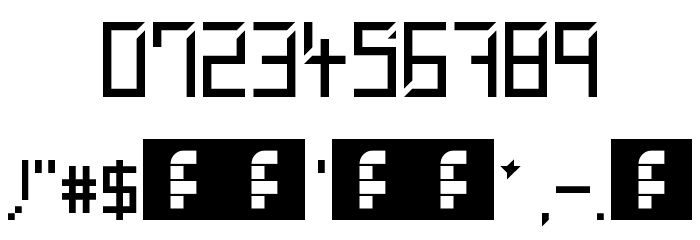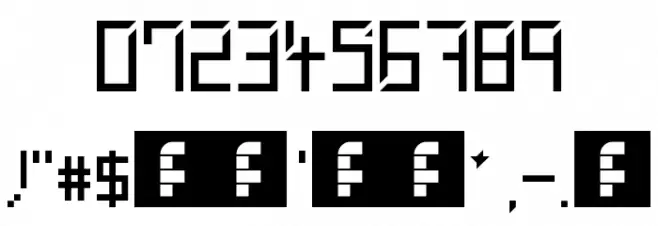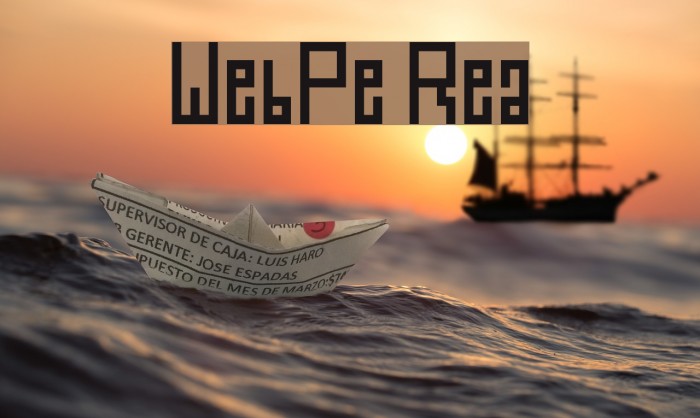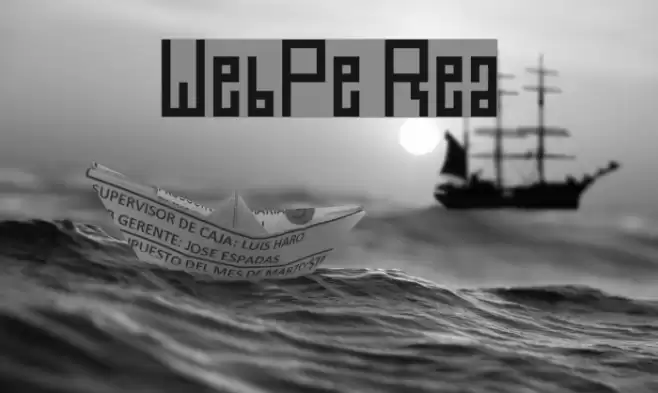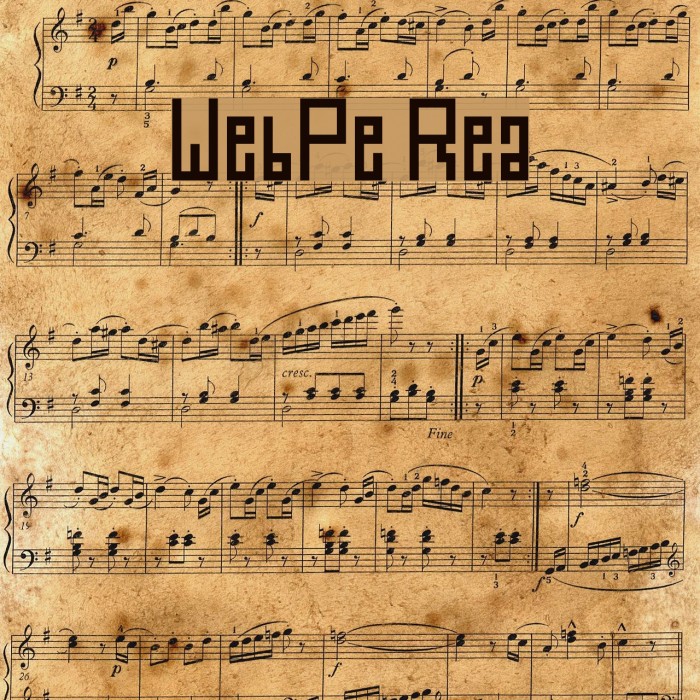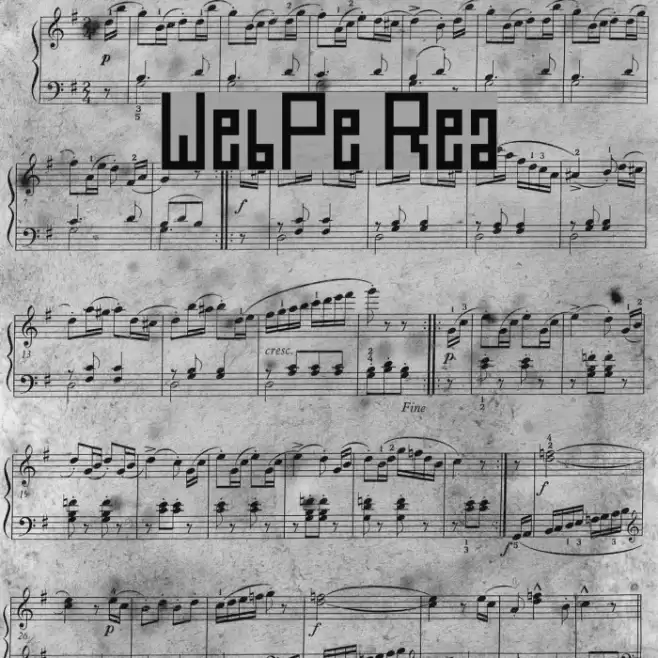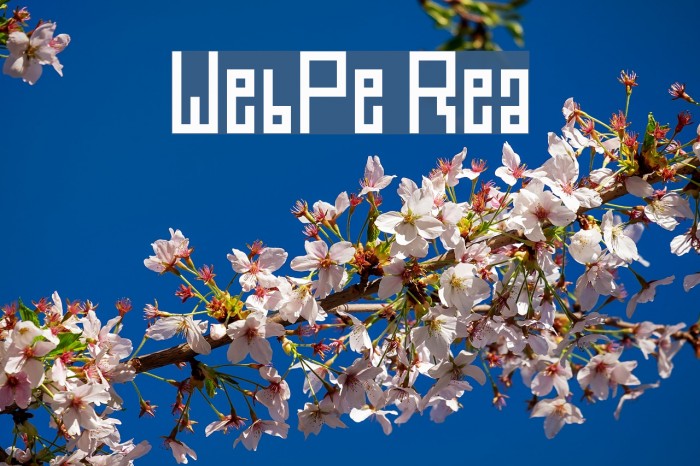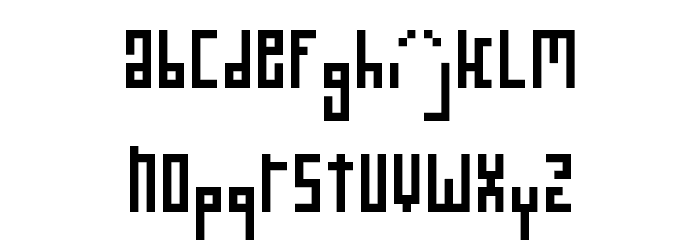
WebPixel Regular Font
WebPixel Regular Description
This font features a pixelated, geometric design that evokes a retro, digital aesthetic reminiscent of early computer graphics. The characters are constructed with uniform square blocks, giving it a distinctly modular appearance. The uppercase and lowercase letters maintain a consistent height, enhancing the font's structured and grid-like feel. Numbers and special characters follow the same pixelated style, ensuring visual coherence across all glyphs. This font's unique style makes it ideal for projects that aim to capture a vintage tech or gaming vibe.
| Overall Style | Vintage, Digital |
| Proposed Projects | Ideal for retro video games, tech-themed posters, digital art projects, and any design requiring a vintage digital look. |